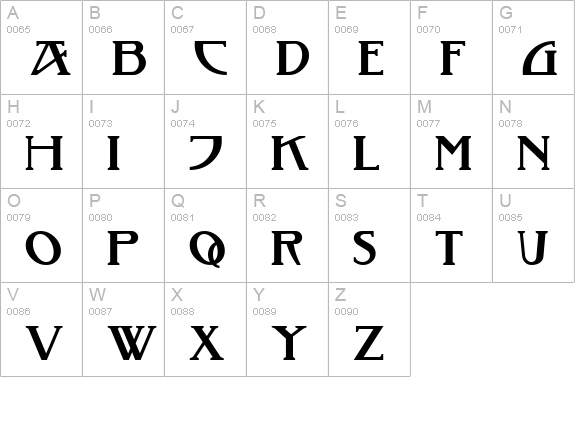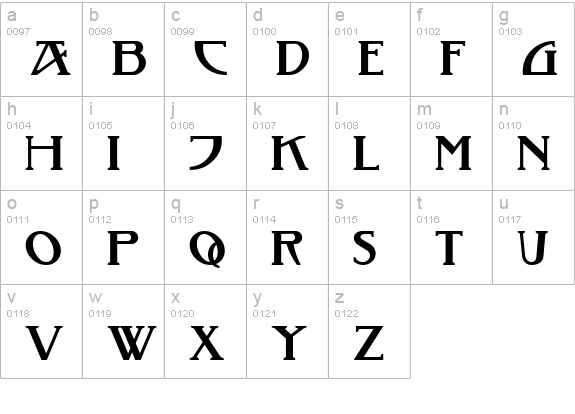
TobaccoRoadNF Font Details
Introducing TobaccoRoadNF, a stunning display font that effortlessly combines vintage charm with a contemporary twist. This versatile typeface is the perfect choice for designers and creatives looking to add a touch of nostalgia to their projects. TobaccoRoadNF features beautifully crafted letterforms, with intricate details and a unique hand-drawn feel. Its elegant, yet slightly rough edges give it an authentic and organic look, making it ideal for a wide range of applications, from branding and packaging to posters and headlines. This font's versatility extends to its extensive character set, including uppercase and lowercase letters, numerals, punctuation marks, and a selection of stylish ligatures. Each character has been meticulously designed to maintain consistency and legibility, ensuring a seamless reading experience. What makes TobaccoRoadNF even more remarkable is that it is freely available to download at FontsMarket.com. This means that anyone can enjoy the beauty and versatility of this incredible font without any cost. Whether you're a professional designer or a hobbyist, TobaccoRoadNF provides you with the opportunity to elevate your designs without breaking the bank. So, why wait? Download TobaccoRoadNF today and let your creativity flourish. With its timeless appeal and free availability, this font is sure to become a staple in your design arsenal.